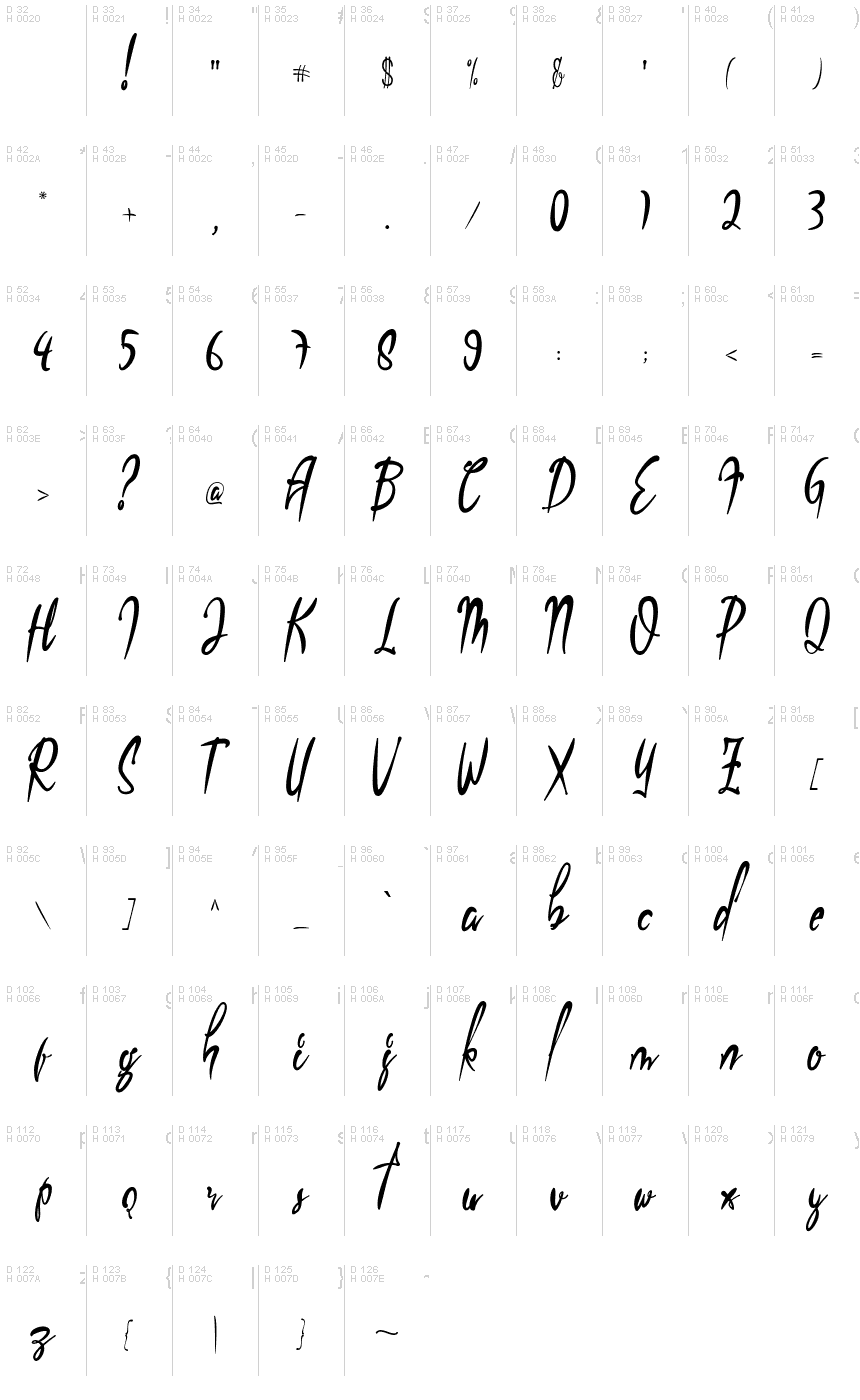
Ellpacino Handbrush
Ellpacino Handbrush is a unique brush font designed by RudiWin. With its semi-light weight, this typeface is perfect for projects that require a delicate touch. Its hand-drawn style adds personality and character to any design. Use it for branding, logos, packaging, social media graphics, or any project that needs a playful and artistic touch. Ellpacino Handbrush is ideal for fashion and beauty industries as well as food and beverage brands looking to create an organic and natural aesthetic. This font is sure to make your designs stand out with its authentic brush strokes and charming imperfections.